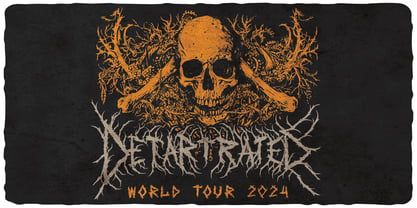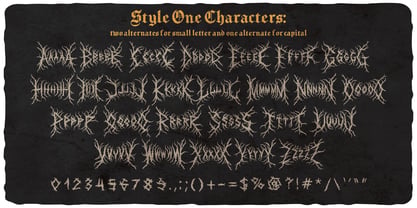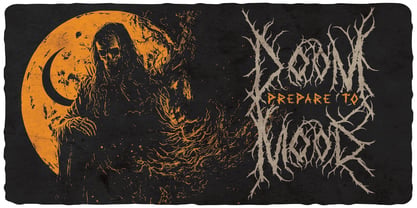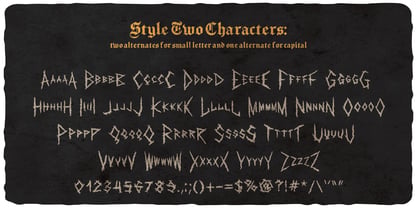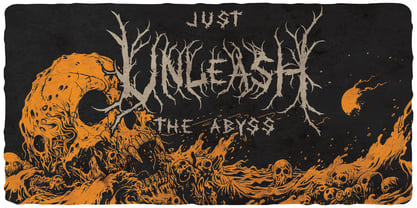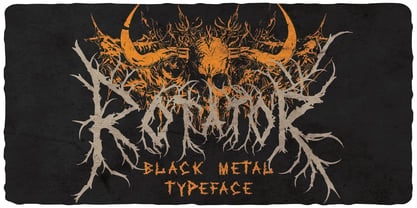
Rotator
von Vozzy
Die Schriftfamilie Rotator wurde von Oleg Voznyy entworfen und von Vozzy veröffentlicht. Rotator enthält 2 Stile und Familienpaketoptionen. Mehr über diese Familie
Introducing the original display font "Rotator" – a striking, handcrafted typeface designed to make a statement. The font is made in the style of black metal band logos. It comes with extended characters, punctuation, and full multilingual support, making it a versatile choice for any creative project. A variety of alternate characters are included to give your text a personalized and dynamic look. Whether you're creating posters, flyers, branding, or T-shirt graphics, this font adds character and clarity to your design. "FontName" was carefully drawn by hand to capture an authentic and expressive feel. Make your work stand out with this unique custom font.